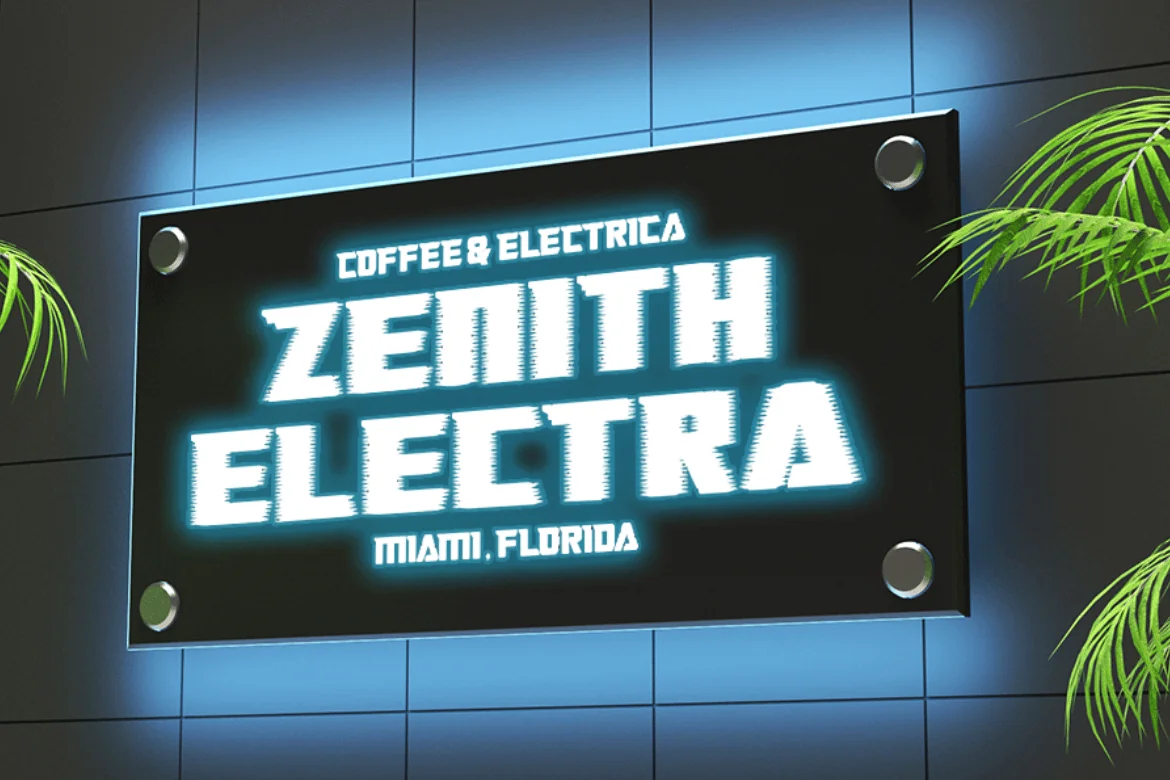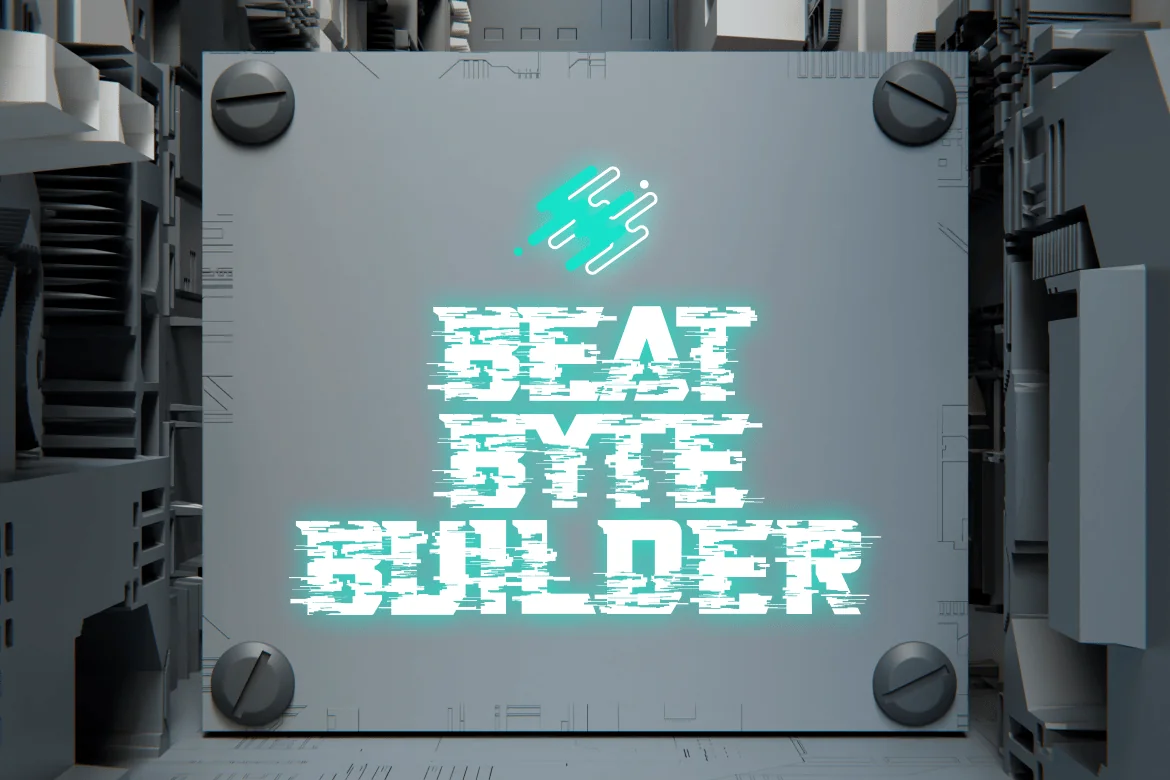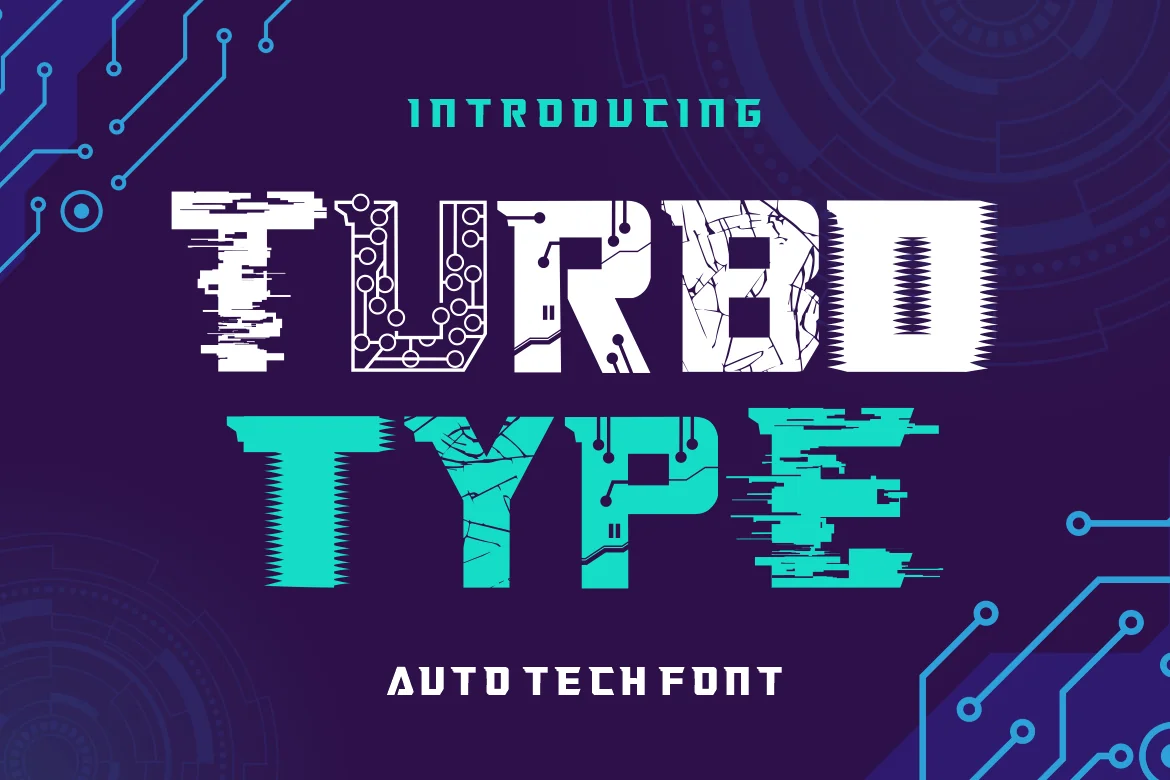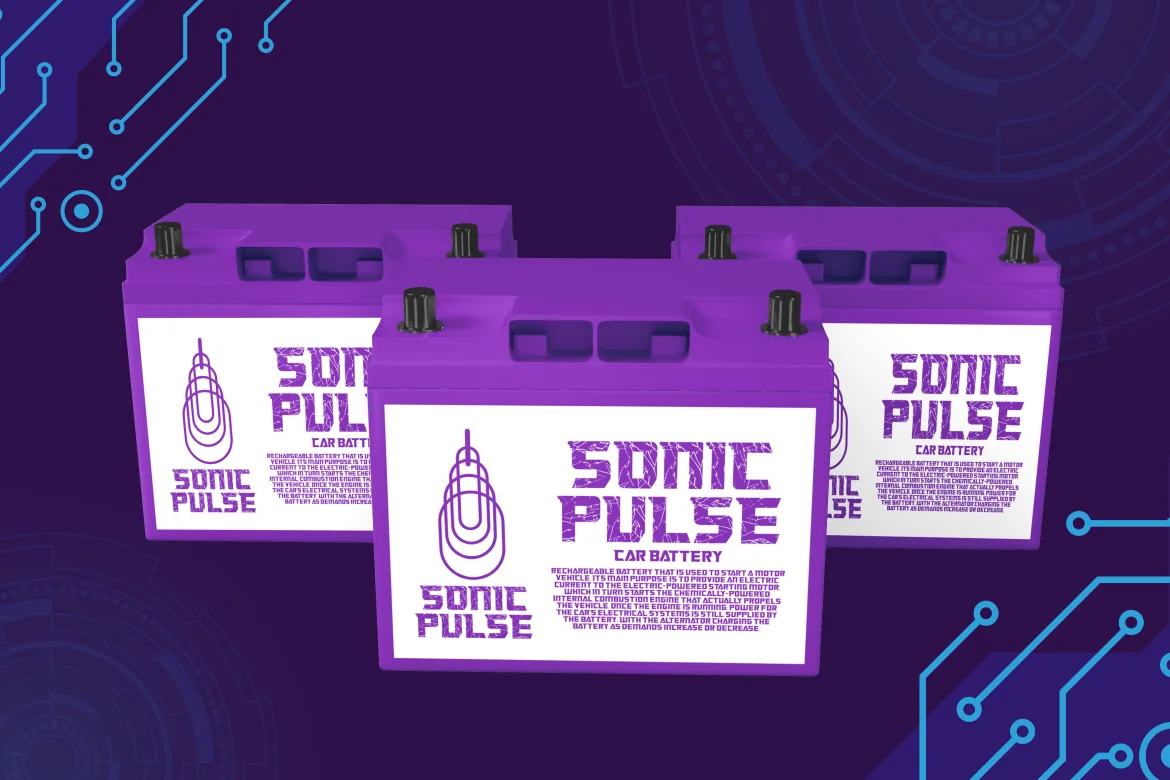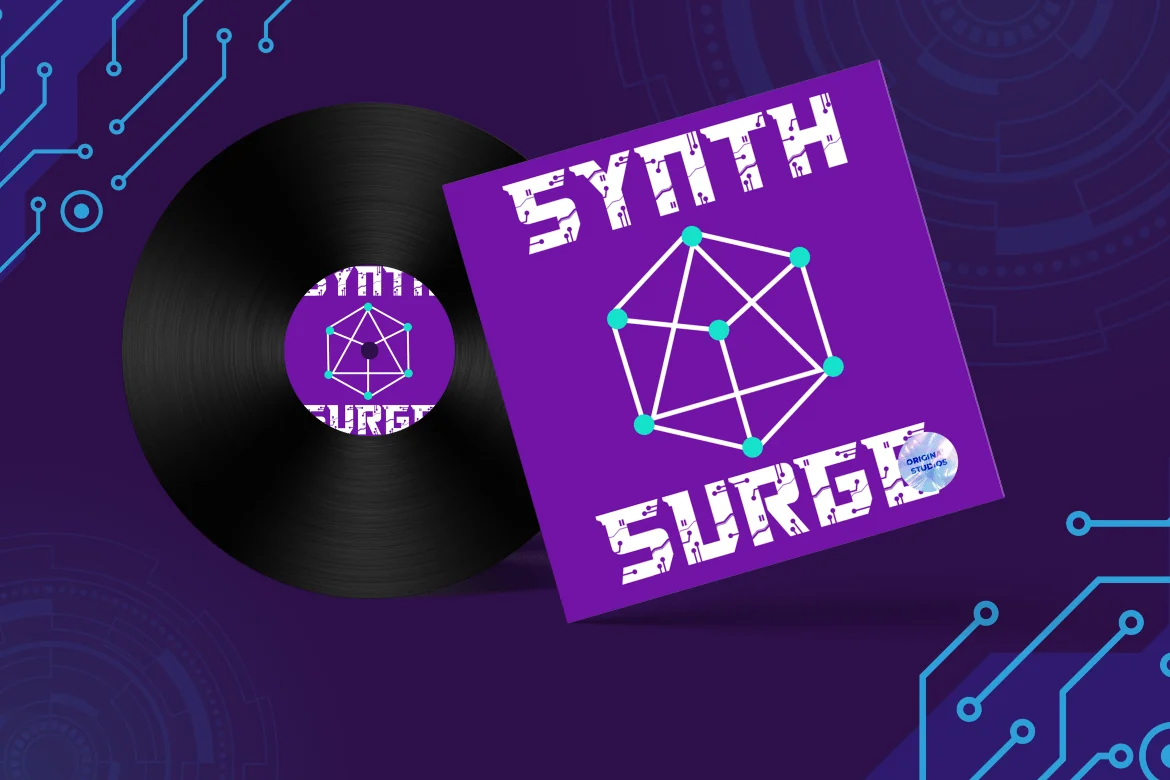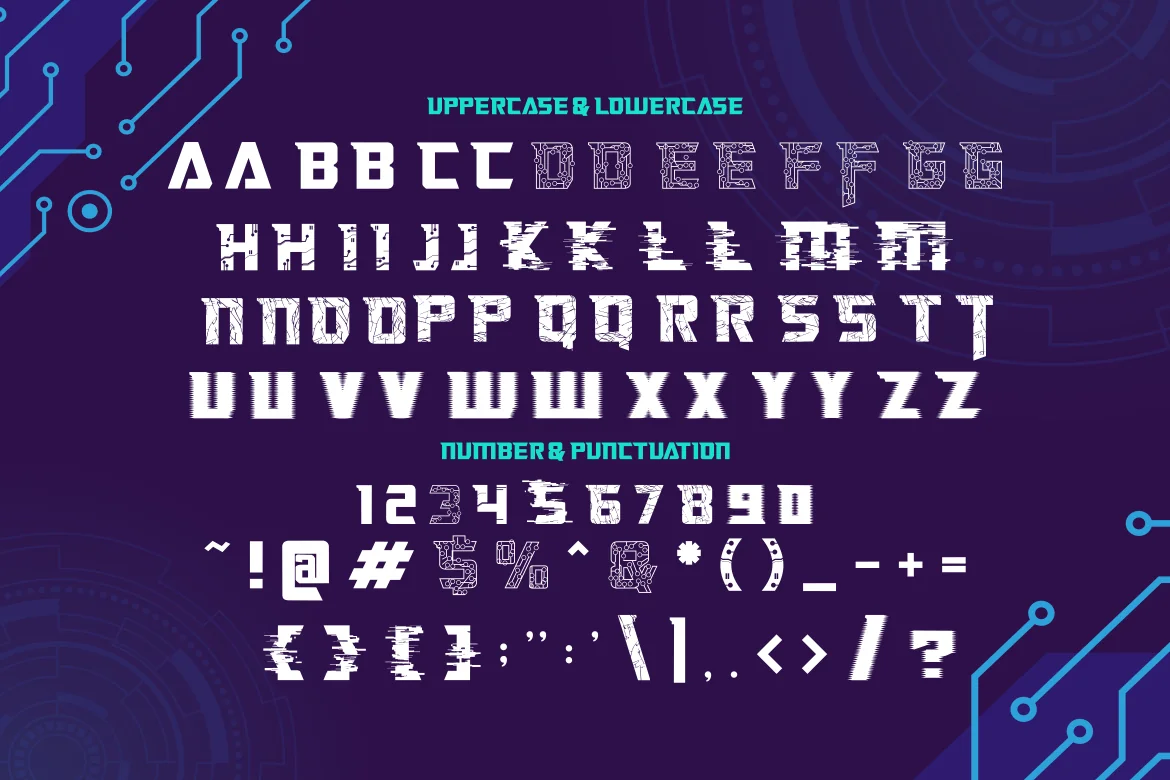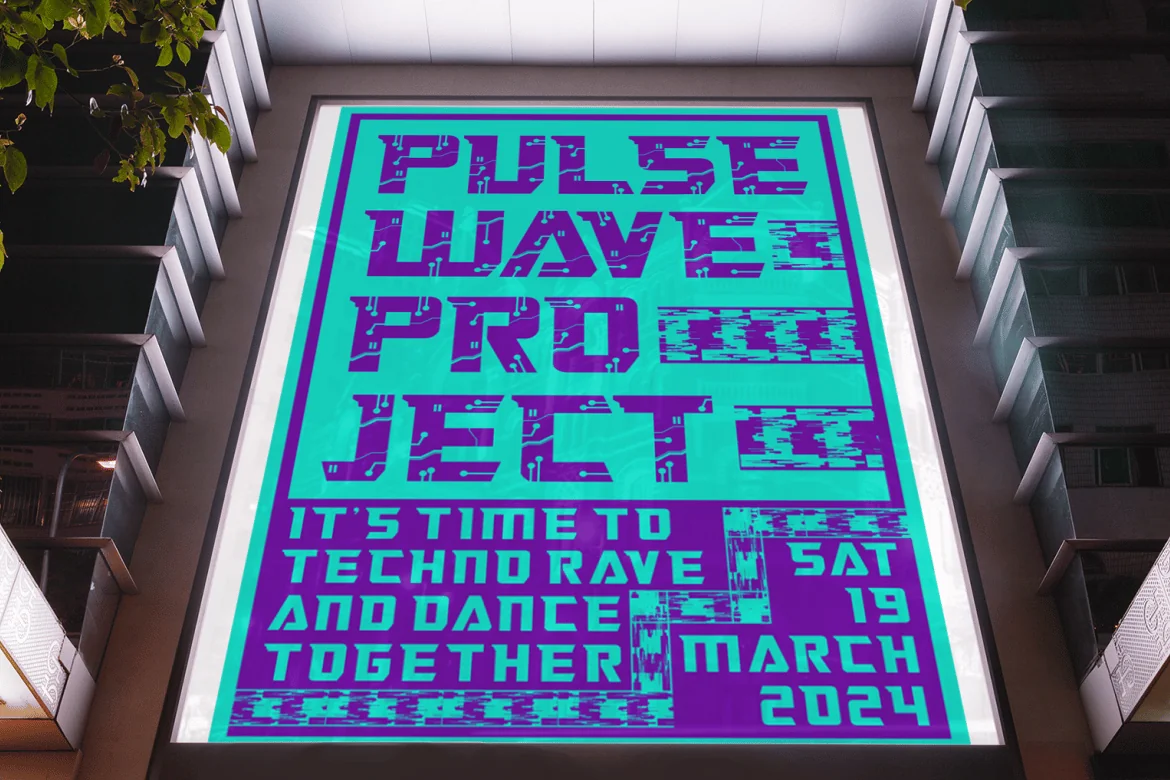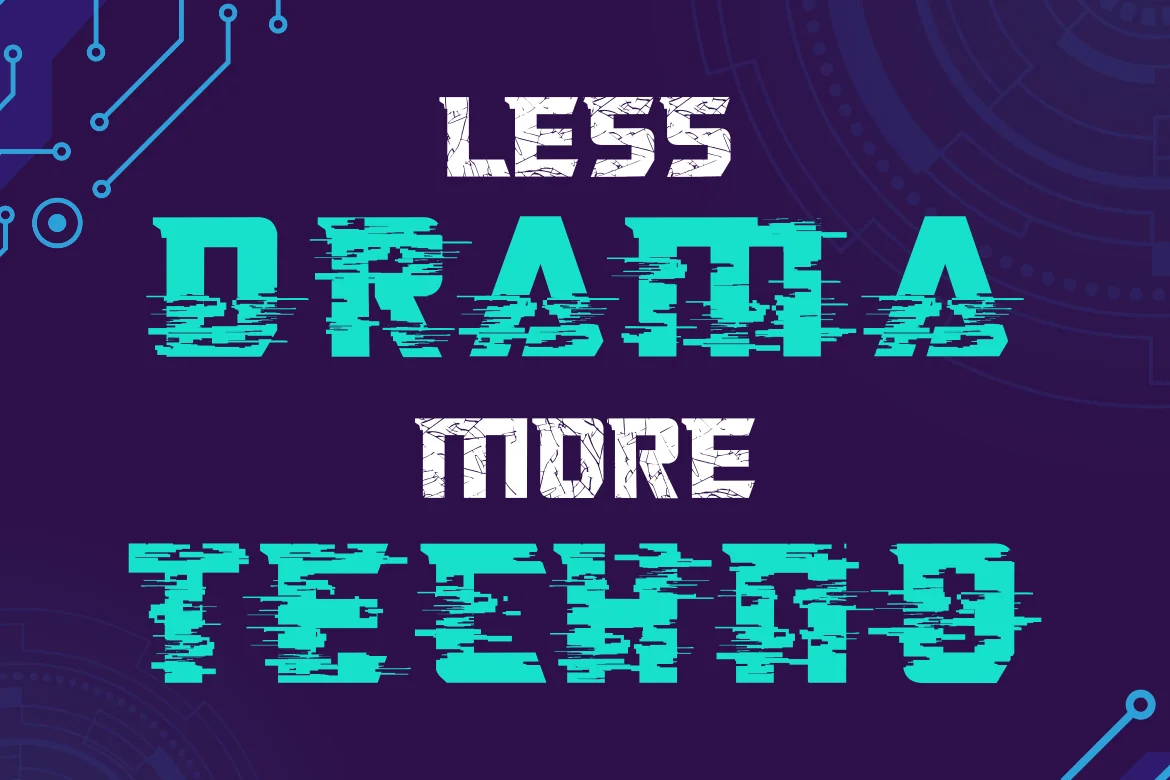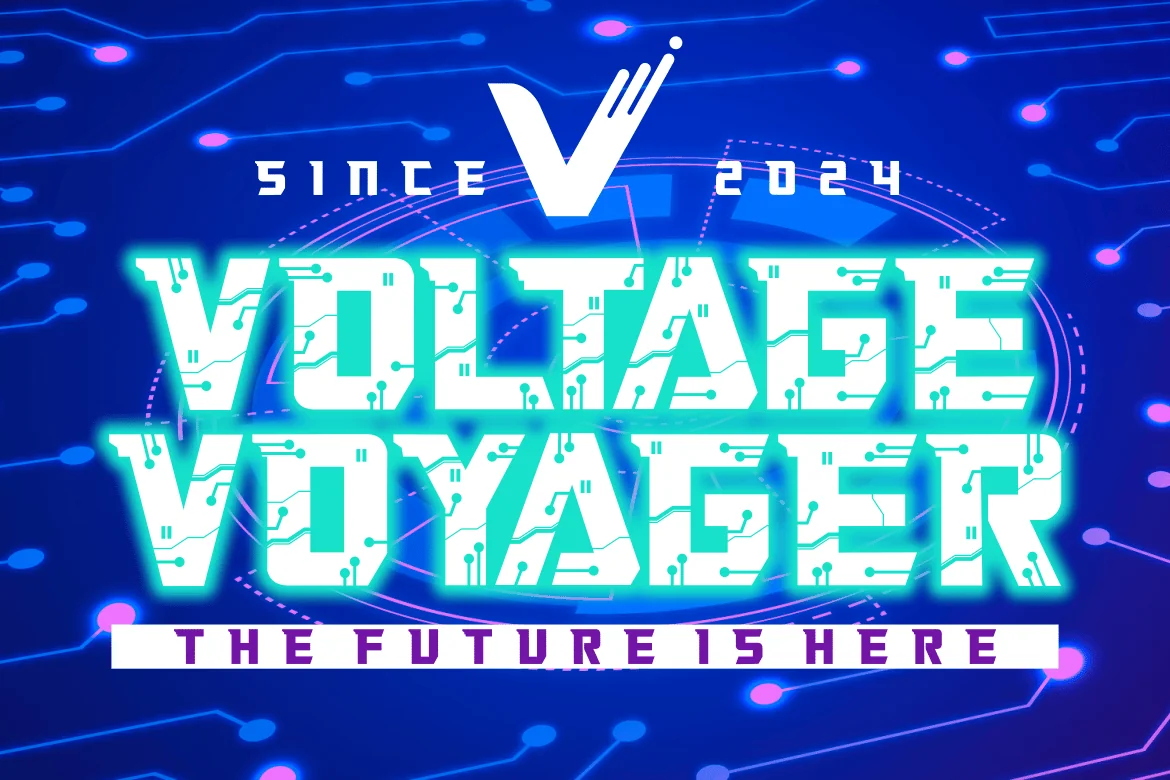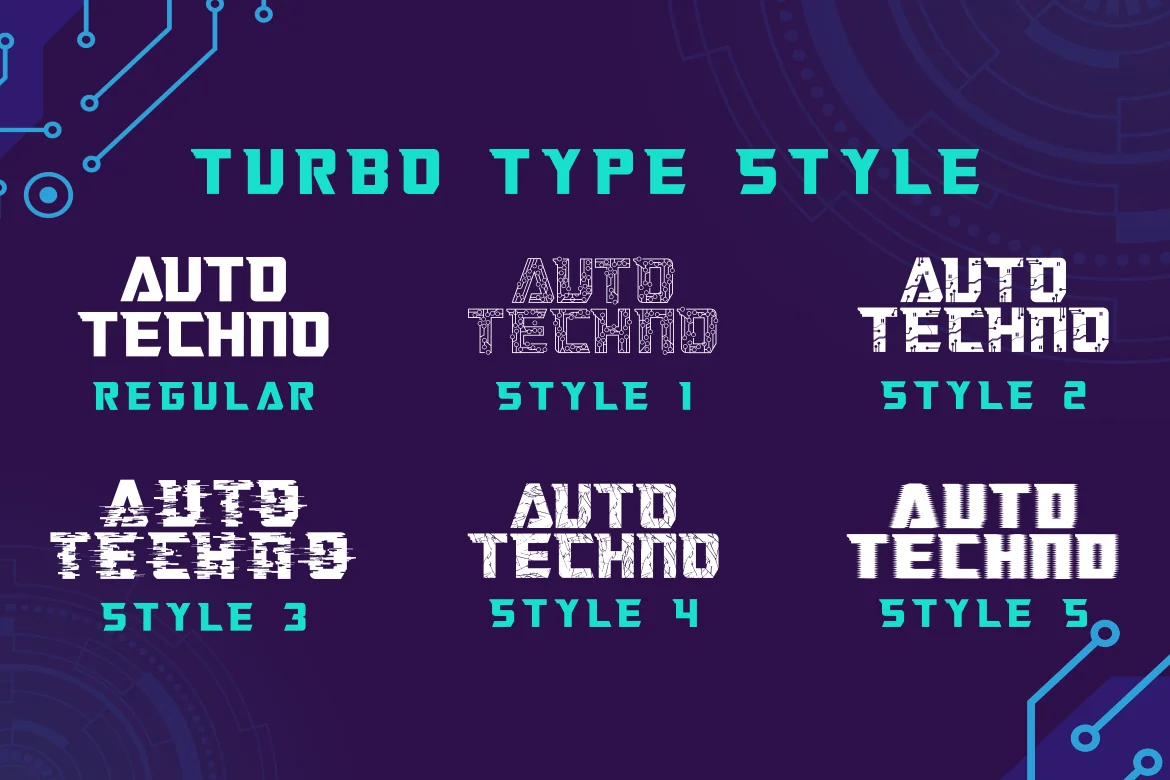
Turbo Type – Auto Tech Font
Rev up your design engine with Turbo Type – Auto Tech Font, the ultimate digital font for the fast lane. This sleek, modern typeface is engineered for precision and speed, capturing the essence of automotive technology in every character. With its streamlined letters and tech-inspired design, Turbo Type is perfect for logos that need to convey power and innovation, branding that races ahead of the competition, and crafting projects that demand a touch of modernity.
Whether you’re creating an invitation that stands out on the starting grid, packaging that zooms off the shelf, or a poster that commands attention like a sleek supercar, Turbo Type delivers. It’s not just a font; it’s a statement of style and performance. Ideal for business communications that need to be clear and impactful, greeting cards that express a dynamic message, or children’s books that inspire a sense of adventure. Turbo Type is the go-to font for designs that need to move fast and look sharp.